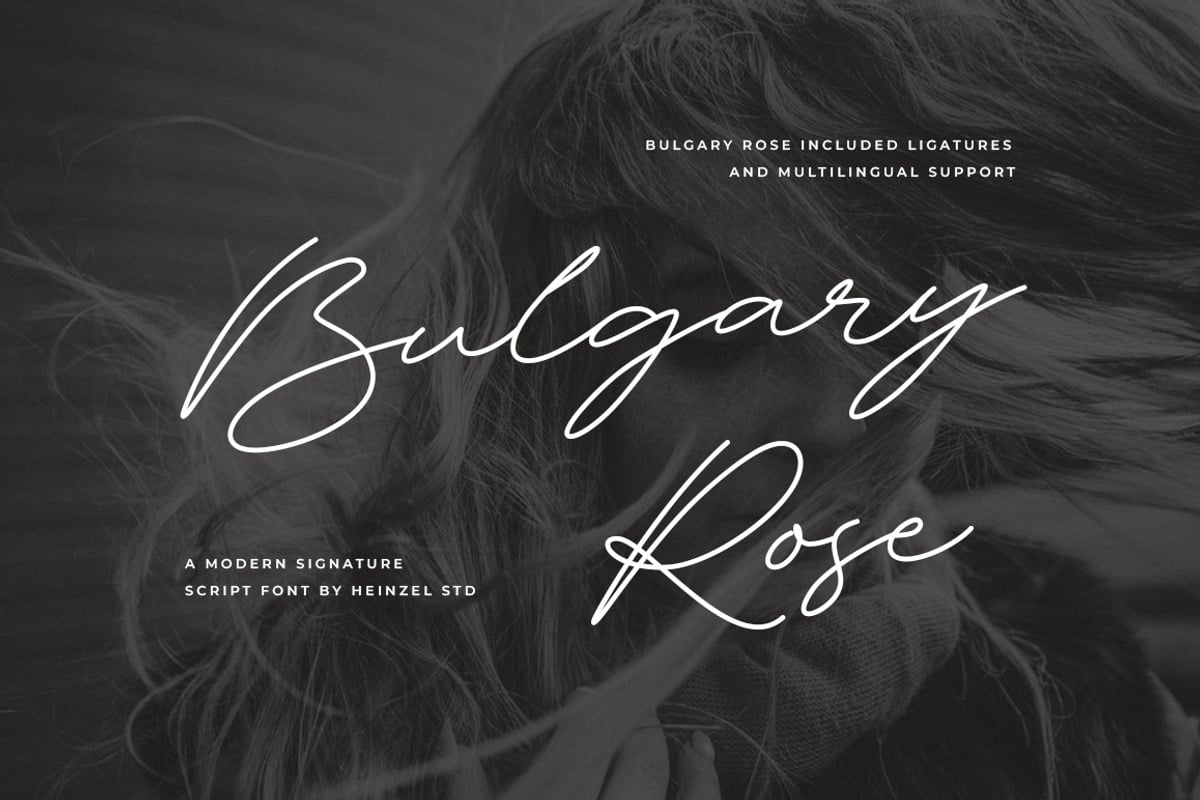
Bulgary Rose Signature Script Font
Bulgary Rose is the elegant signature script font that makes every design feel handcrafted and timeless.
With its flowing, natural letterforms and distinctly refined character, Bulgary Rose brings an authentic handwritten touch to any project. Whether you're designing wedding invitations, thank you cards, greeting cards, or luxury branding materials, this typeface delivers effortless sophistication.
It's equally stunning across logos, business cards, social media graphics, and magazine layouts — anywhere a personal, elegant aesthetic is needed.
- Uppercase and Lowercase letters
- Numerals and Punctuation
- Ligatures
- Multilingual support for 21 languages: Afrikaans, Basque, Breton, Catalan, Danish, Dutch, English, Finnish, French, Gaelic (Irish, Scots), German, Icelandic, Indonesian, Irish, Italian, Norwegian, Portuguese, Saami (Southern), Spanish, Swahili, and Swedish